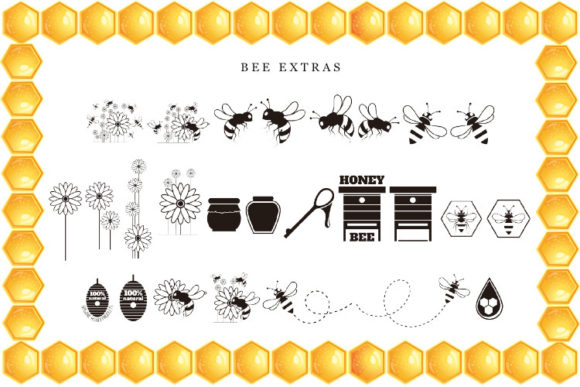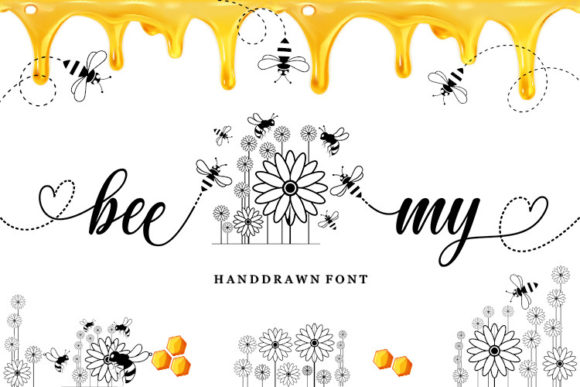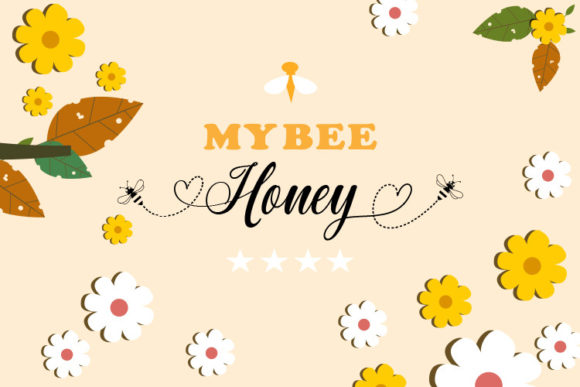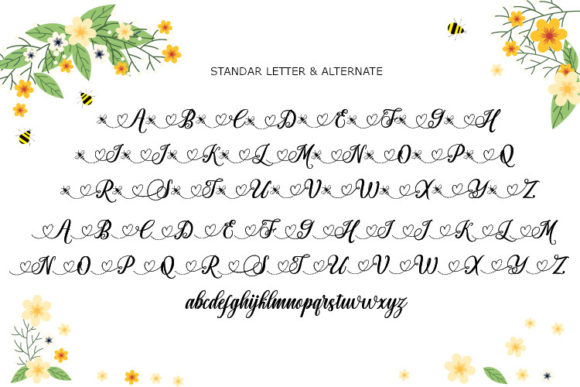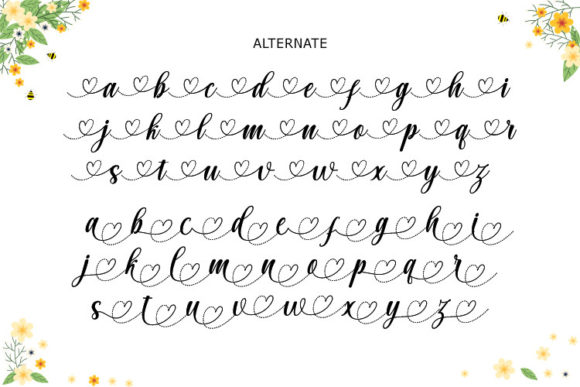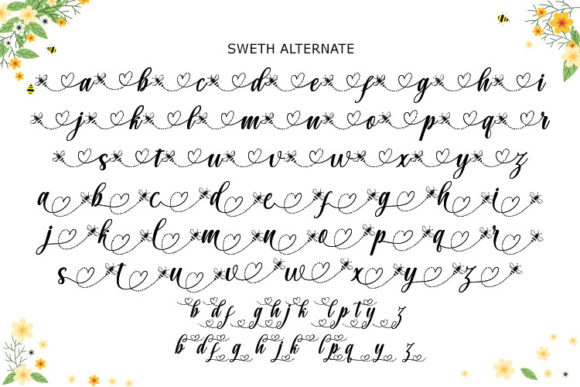
Introduction to My Bee Honey Font
My Bee Honey is a distinct graceful script font.
Fall for its ravishing style and use it to create gorgeous designs This font is PUA encoded which means you can access all glyphs and swashes with ease.